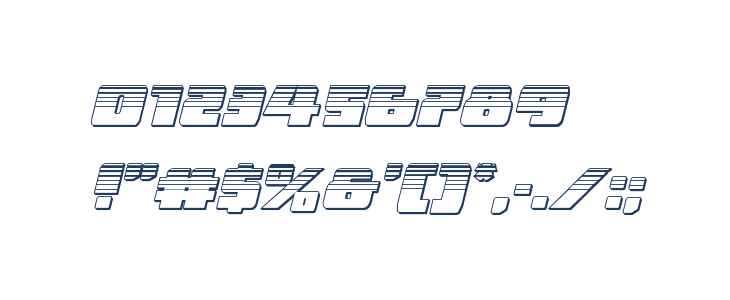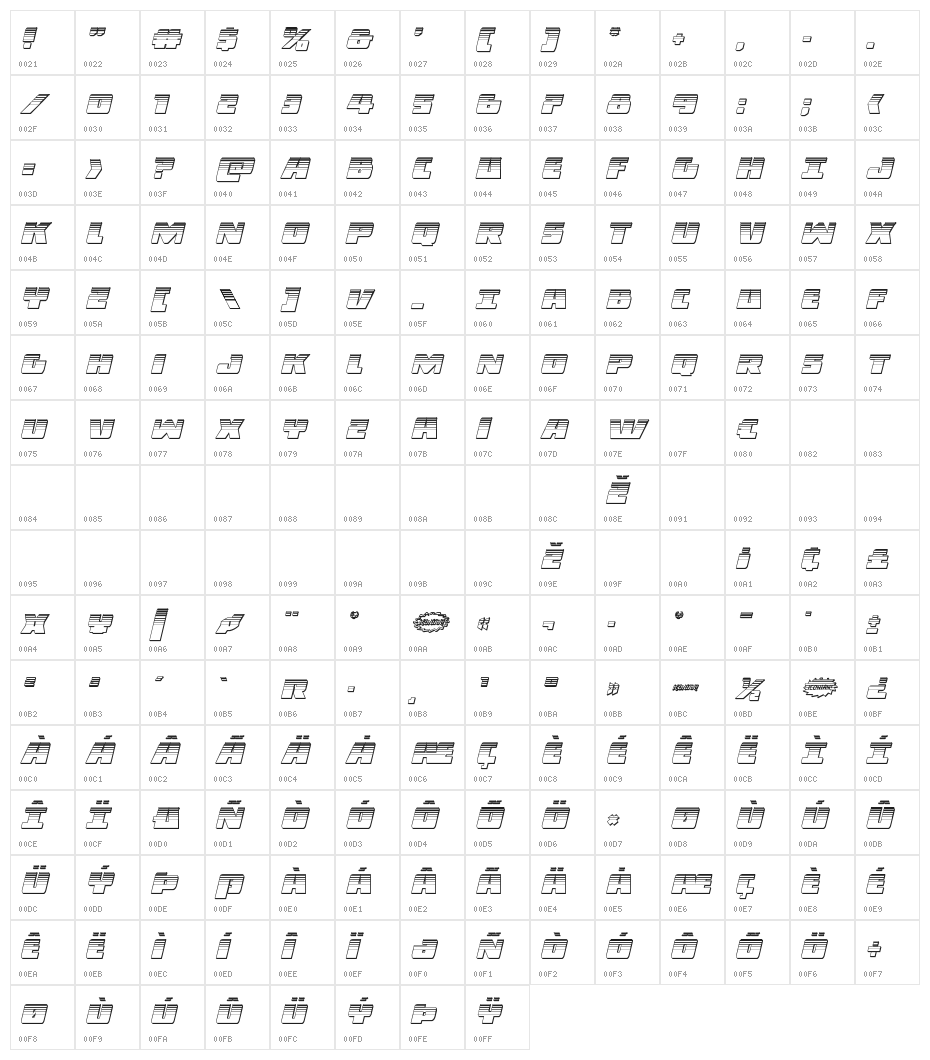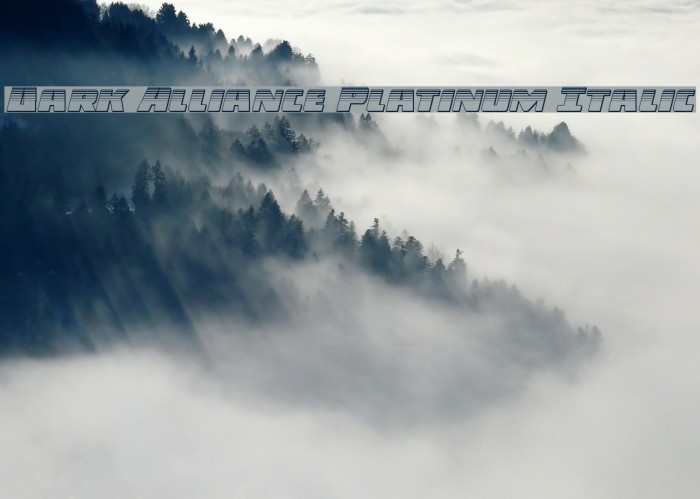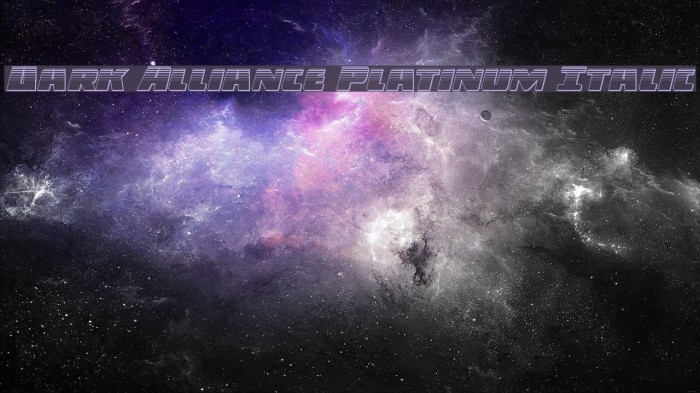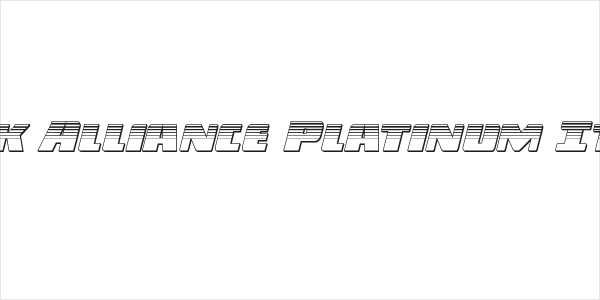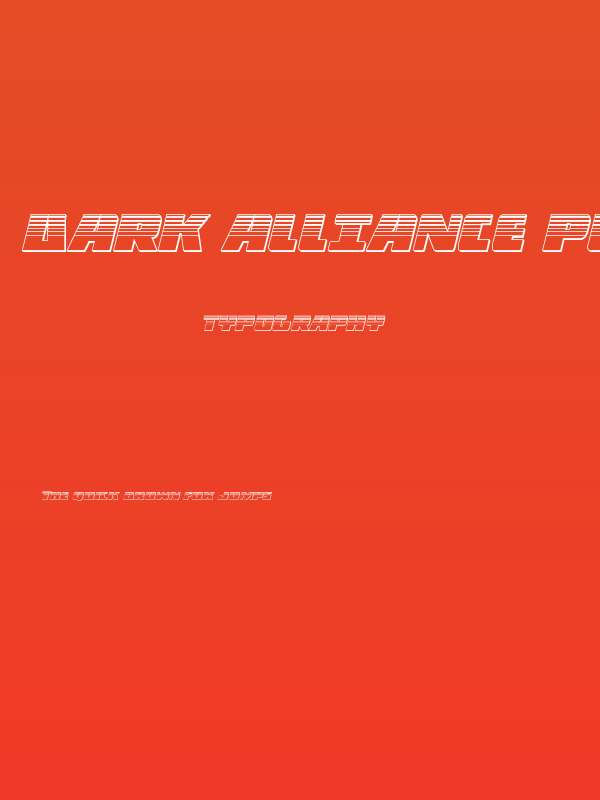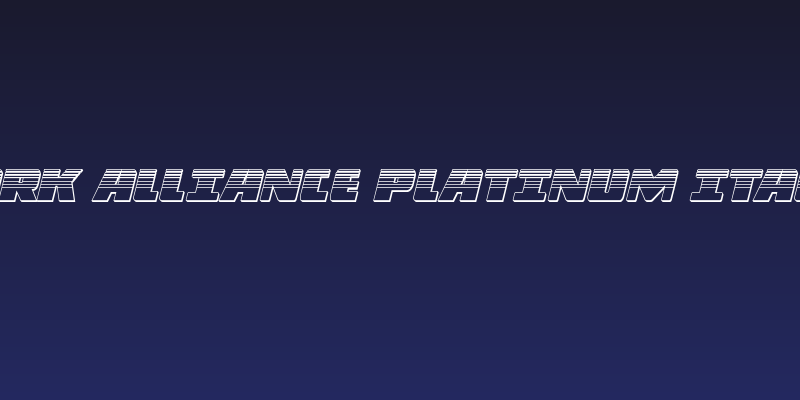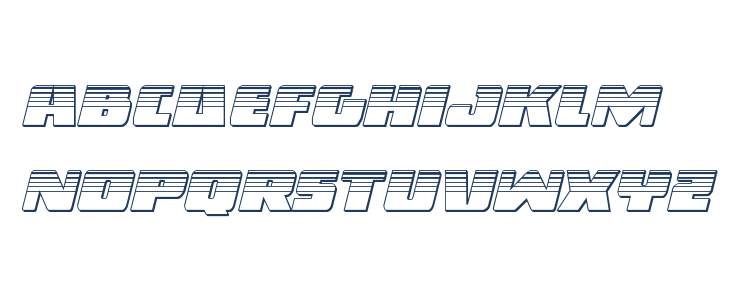
Dark Alliance Platinum Italic Font
Dark Alliance Platinum Italic Description
This font features a bold, futuristic design with a distinct three-dimensional effect created by parallel lines running through each character. The italicized style adds a dynamic and forward-leaning appearance, enhancing its modern aesthetic. The characters are wide and have a strong presence, making them ideal for attention-grabbing headlines or logos. The uppercase and lowercase letters maintain a consistent style, while the numerals and special characters complement the overall design. The font's unique structure and bold lines make it suitable for projects that require a modern, tech-inspired look.
| Proposed Projects | Ideal for tech-related branding, sci-fi movie posters, video game titles, and modern advertising campaigns. |